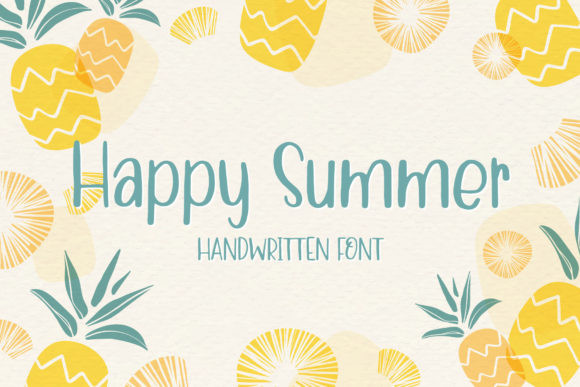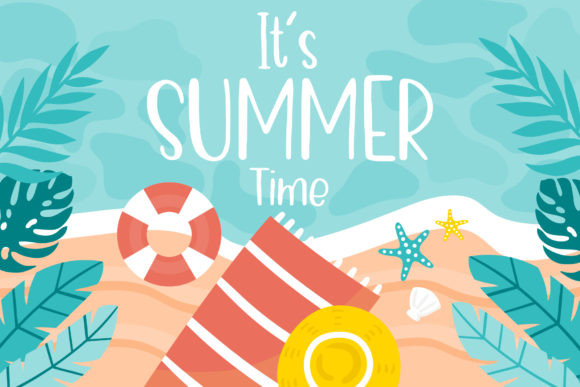
Happy Summer Font
Happy Summer is a playful and modern handwritten font. Fall in love with its incredibly versatile style and use it to create gorgeous wedding invitations, beautiful stationary art, eye-catching social media posts, and much more!